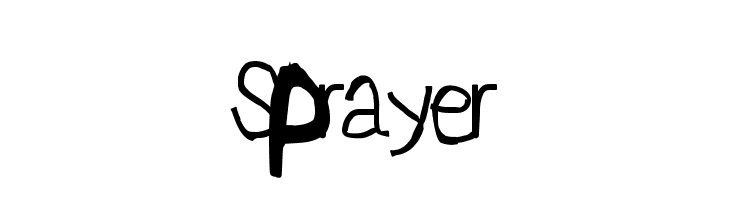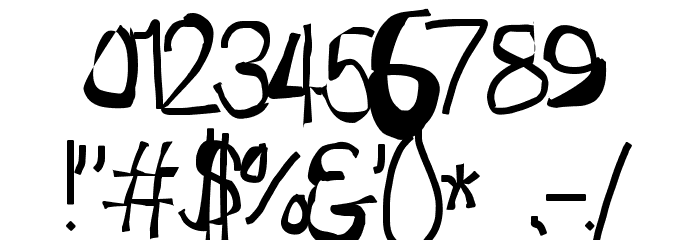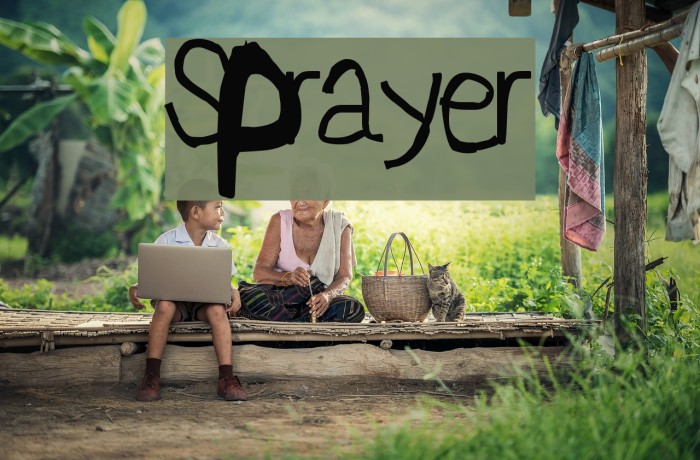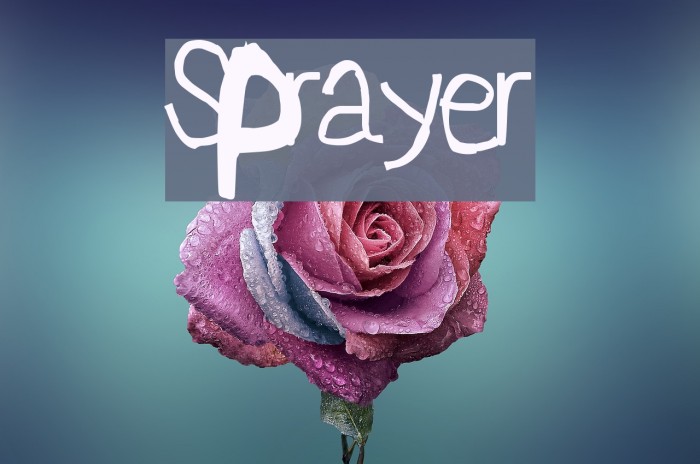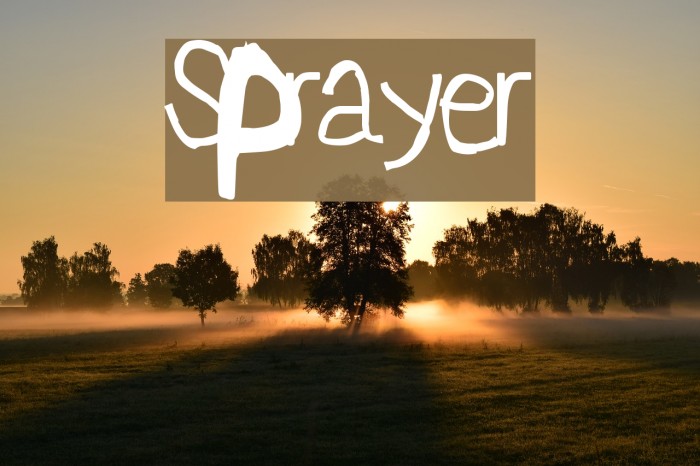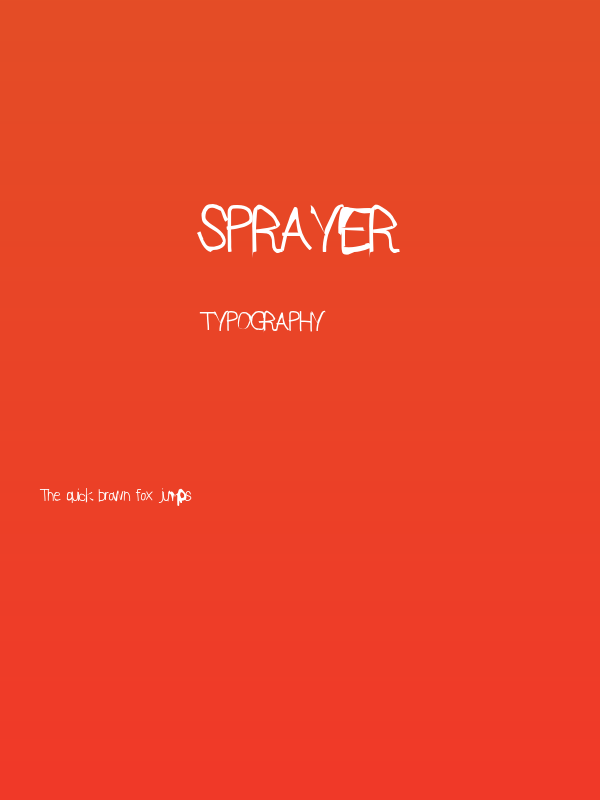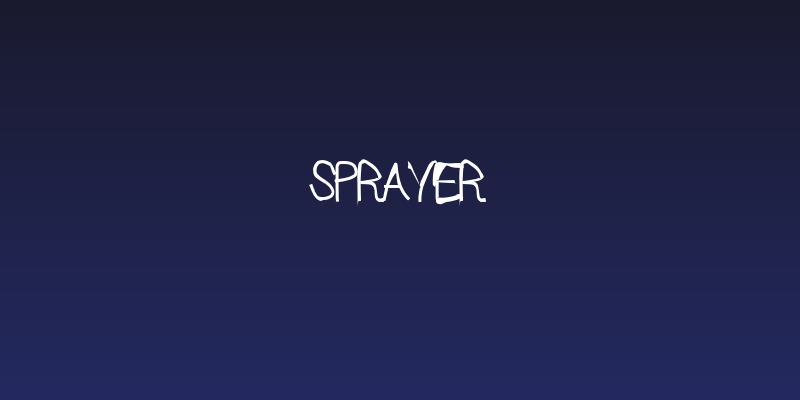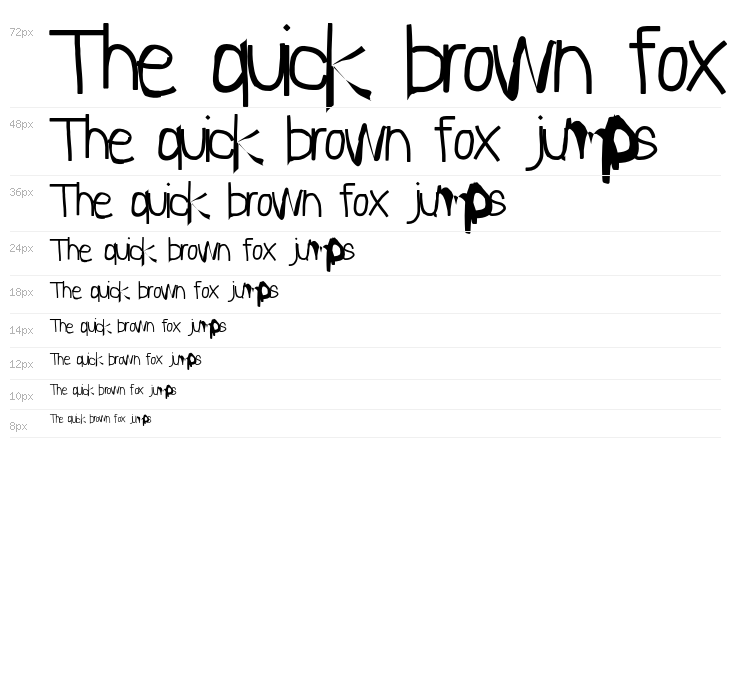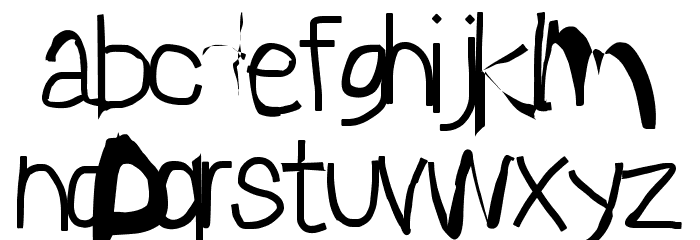
Sprayer Font
Sprayer Description
This font embodies a bold and expressive style, reminiscent of graffiti art. The letters are uneven and dynamic, with a hand-drawn appearance that suggests movement and energy. The uppercase and lowercase letters share a consistent aesthetic, with exaggerated curves and sharp angles. Numbers and special characters maintain this artistic flair, adding to the font's overall rebellious and urban feel. The strokes vary in thickness, creating a sense of depth and texture. This font is ideal for projects that aim to capture a sense of creativity and individuality.
| Overall Style | Modern, Urban, Artistic |
| Use Case | Logos, Posters, Headlines |
| Proposed Projects | Perfect for street art designs, urban-themed posters, edgy branding, and creative advertising campaigns. |